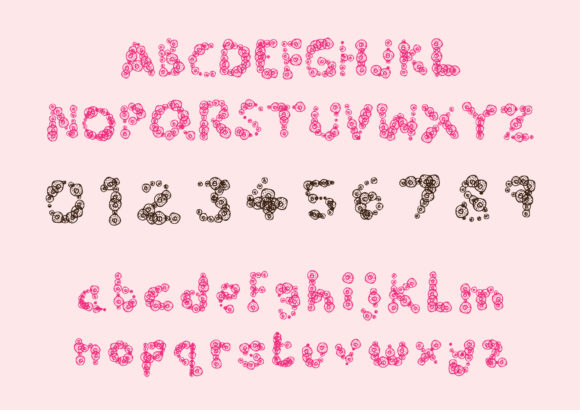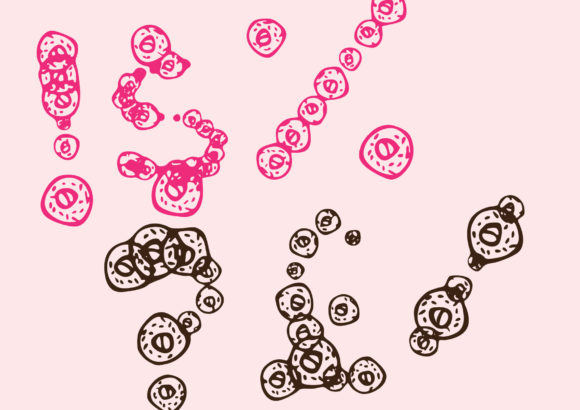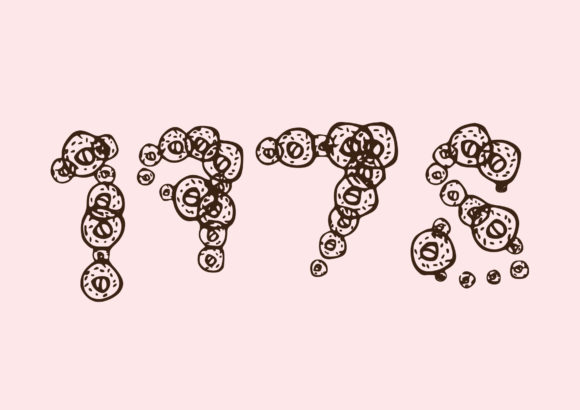
Doughnuts Font: The Sweetest Addition to Your Design Toolbox
Are you tired of using the same old fonts for your designs? Look no further than the Doughnuts Font, a sweet, fun, and casual display font that’s perfect for adding a touch of whimsy to your projects. In this article, we’ll dive into the world of Doughnuts Font and explore its features, uses, and benefits for designers and crafters.
What is Doughnuts Font?
Doughnuts Font is a unique and eye-catching display font that’s designed to resemble, well, doughnuts! With its playful and casual vibe, it’s ideal for designs that require a fun and lighthearted touch. Whether you’re creating logos, branding materials, stationery, greeting cards, or any other type of design that needs a sweet treat-inspired look, Doughnuts Font is the perfect choice.
Features of Doughnuts Font
So, what makes Doughnuts Font so special? Here are some of its key features:
- Sweet and Fun Design: Doughnuts Font is designed to be visually appealing and playful, making it perfect for designs that require a fun and casual touch.
- High-Quality Letters: Each letter in the font is carefully crafted to ensure high-quality and clear readability.
- Versatile: Whether you’re designing for print or digital, Doughnuts Font is versatile enough to use across various platforms.
Uses of Doughnuts Font
Doughnuts Font is perfect for a wide range of design projects, including:
- Logos and Branding: Create a memorable and fun logo for your business or brand with Doughnuts Font.
- Stationery and Invitations: Add a touch of whimsy to your stationery, invitations, and greeting cards with this sweet font.
- Crafting and Scrapbooking: Doughnuts Font is perfect for crafters and scrapbookers who want to add a fun and playful touch to their projects.
- Social Media Graphics: Use Doughnuts Font to create eye-catching social media graphics that are sure to grab attention.
Benefits of Using Doughnuts Font
So, why should you choose Doughnuts Font for your design projects? Here are some benefits:
- Unique and Eye-Catching: Doughnuts Font is a unique and eye-catching font that will set your designs apart from the rest.
- Easy to Read: Despite its playful design, Doughnuts Font is easy to read and understand, making it perfect for designs that require clear communication.
Tips for Using Doughnuts Font
Here are some tips for getting the most out of Doughnuts Font:
- Use it Sparingly: While Doughnuts Font is fun and playful, it can be overwhelming if used excessively. Use it sparingly to create visual interest.
- Pair it with Other Fonts: Pair Doughnuts Font with other fonts to create visual contrast and add depth to your designs.
- Experiment with Colors: Doughnuts Font looks great in a variety of colors, so don’t be afraid to experiment and find the perfect hue for your design.
In conclusion, Doughnuts Font is a sweet, fun, and casual display font that’s perfect for designers and crafters who want to add a touch of whimsy to their projects. With its unique design, high-quality letters, and ease of use, Doughnuts Font is a great addition to any design toolbox. Whether you’re creating logos, branding materials, stationery, or social media graphics, Doughnuts Font is sure to make your designs stand out. So why wait? Give Doughnuts Font a try today and see the difference it can make in your designs!